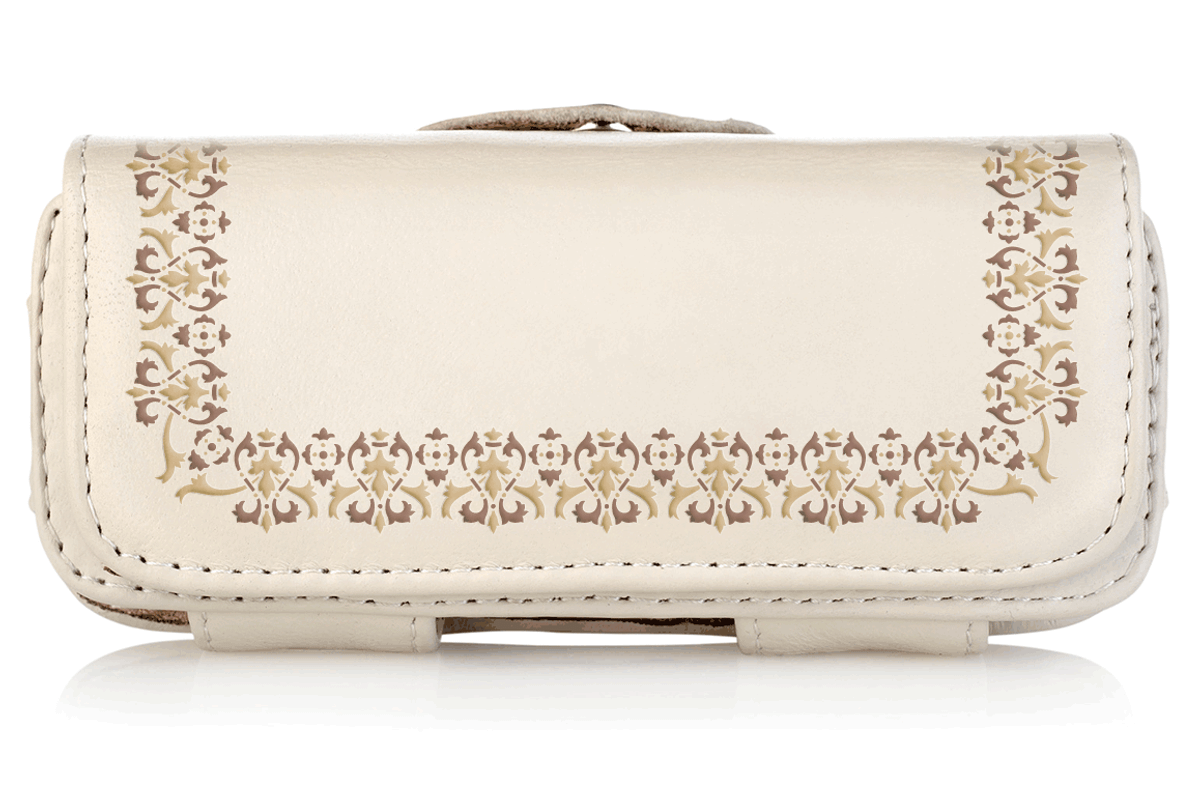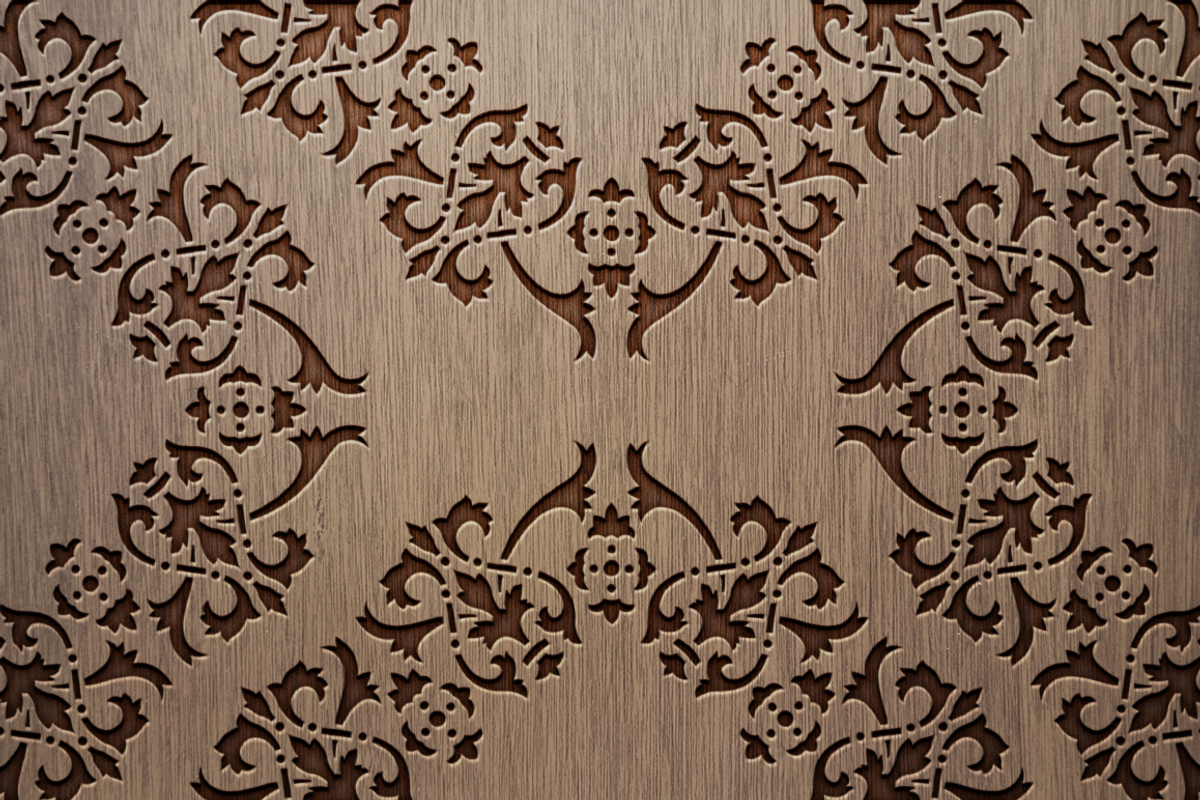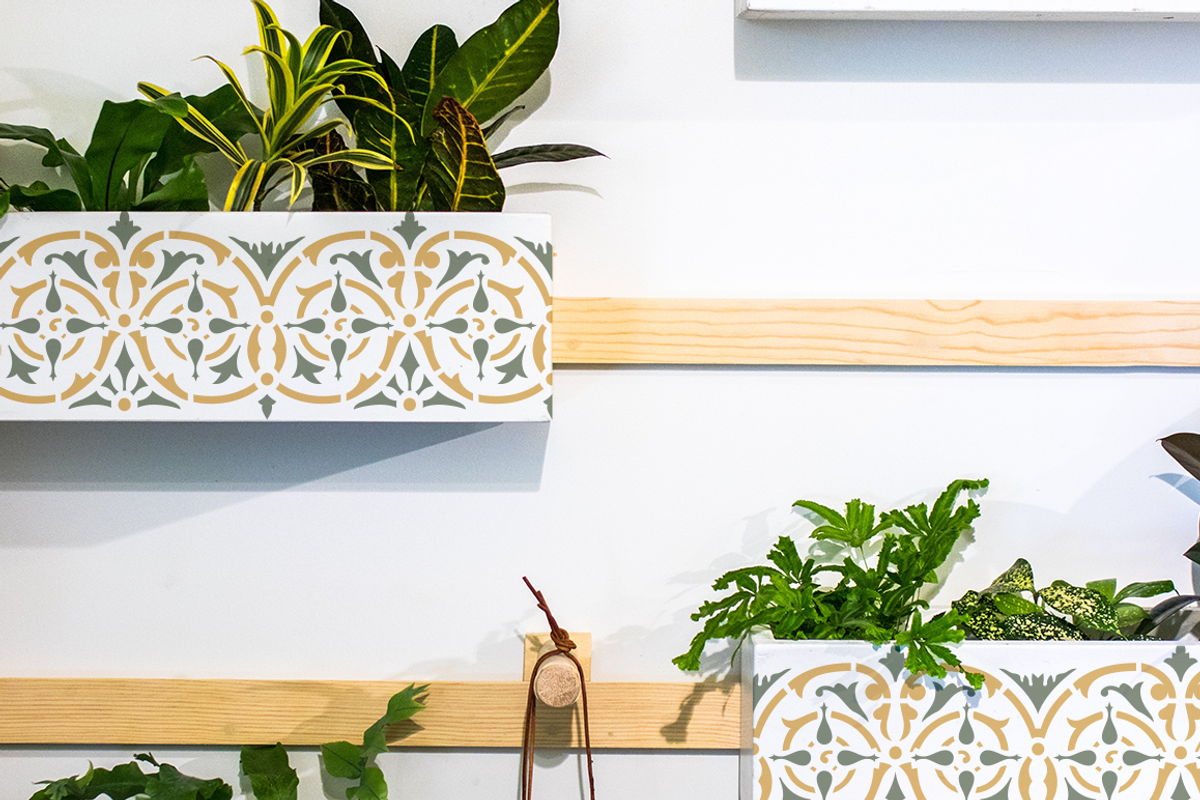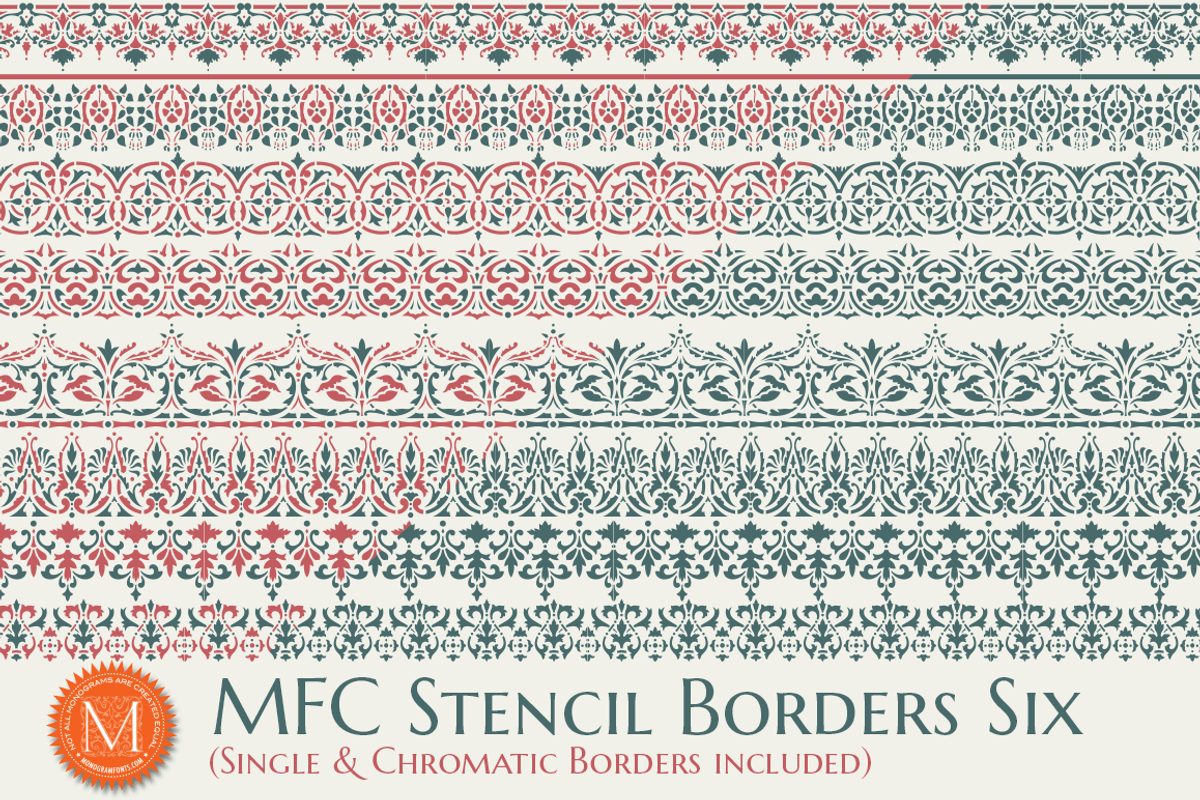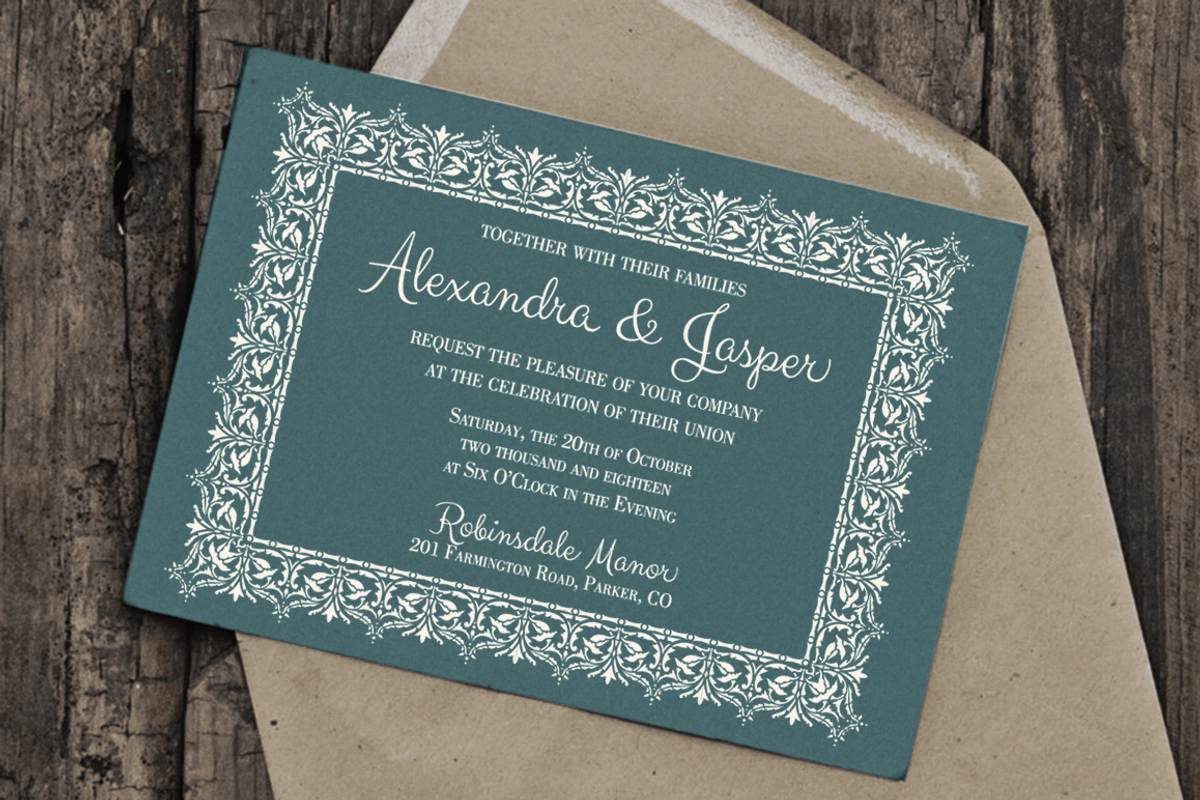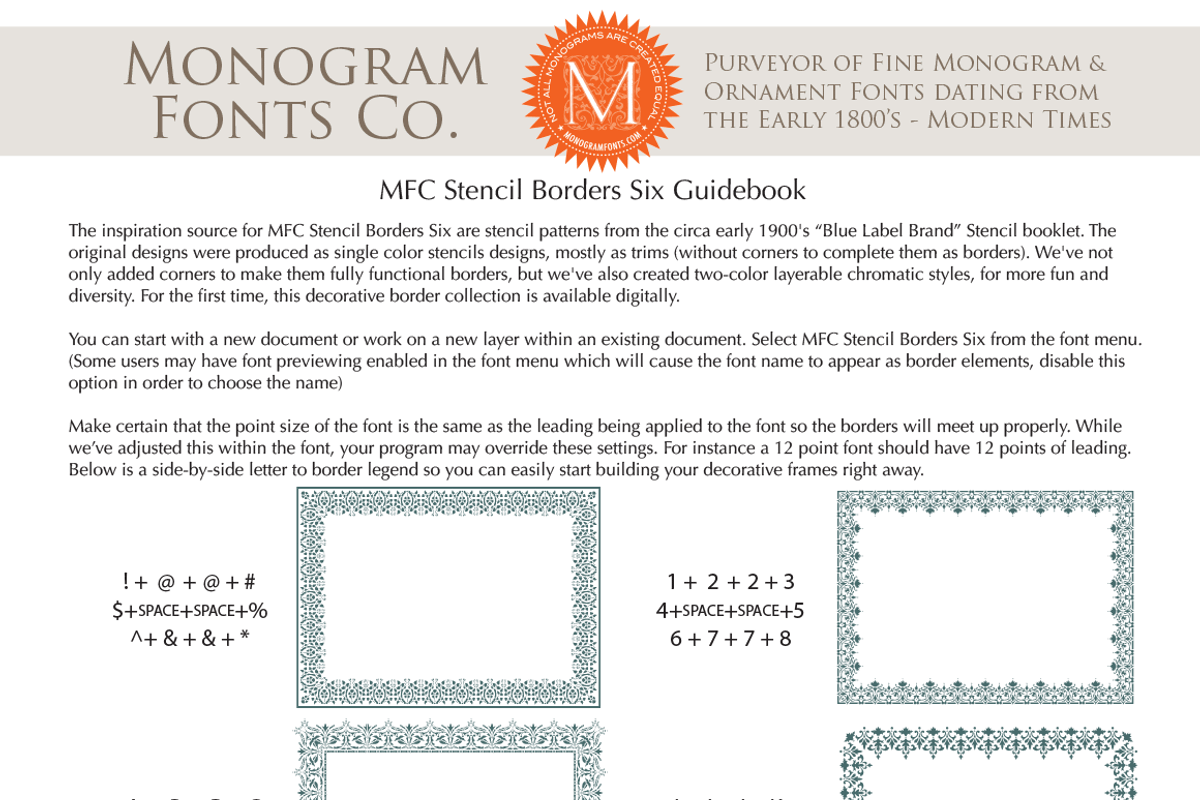
MFC Stencil Borders Six
The inspiration source for MFC Stencil Borders Six are stencil patterns from the circa early 1900's Blue Label Brand Stencil booklet. The original designs were produced as single color stencils designs, mostly as trims (without corners to complete them as borders). We've not only added corners to make them fully functional borders, but we've also created two-color layerable chromatic styles, for more fun and diversity. For the first time, this decorative border collection is available digitally.